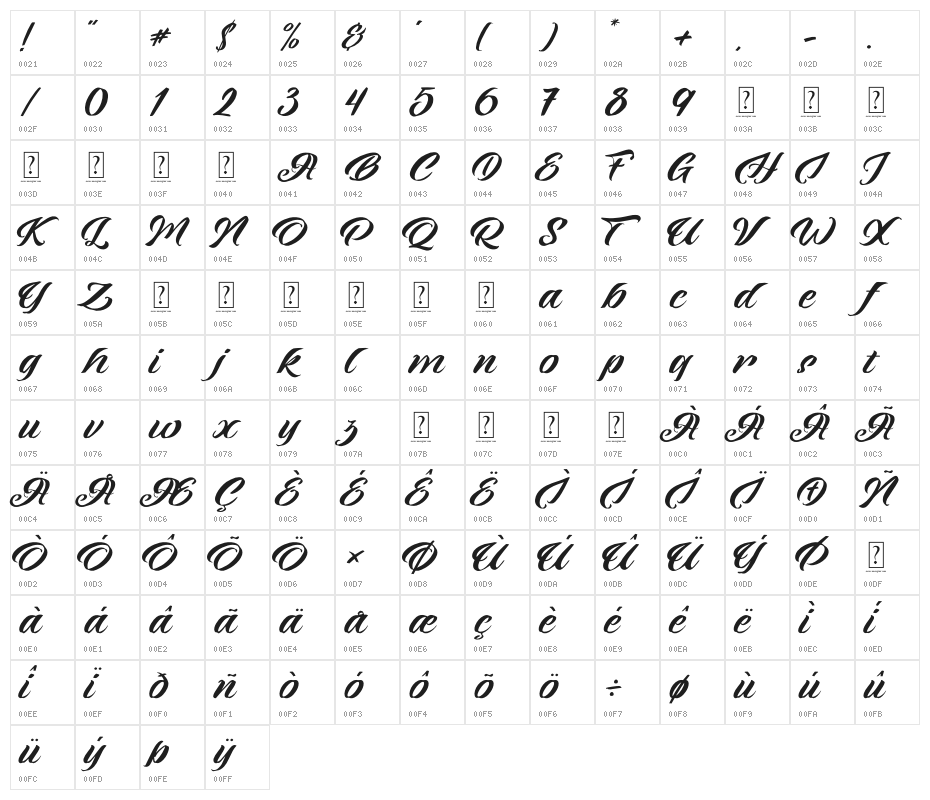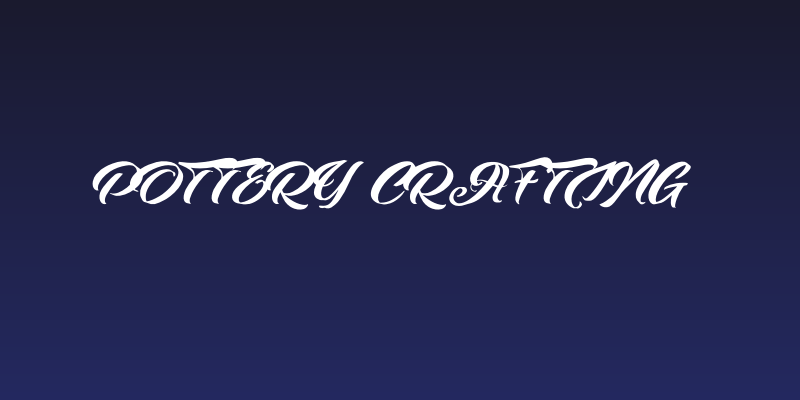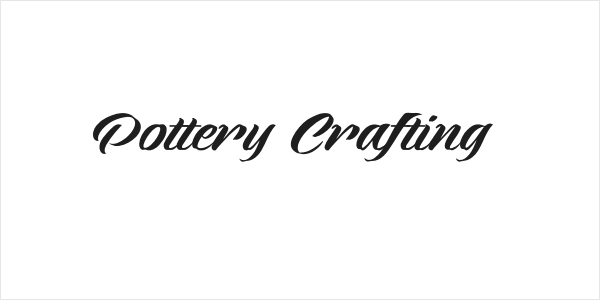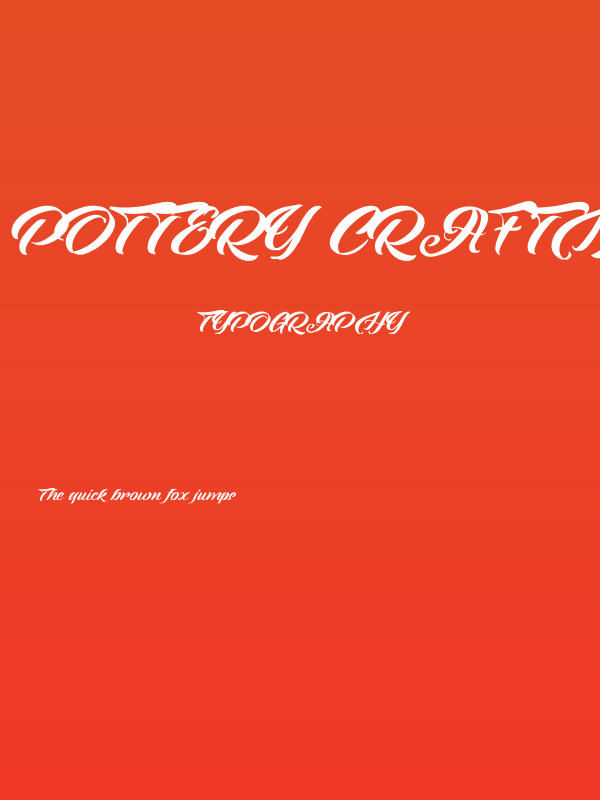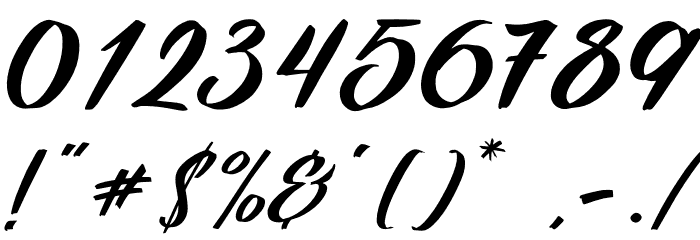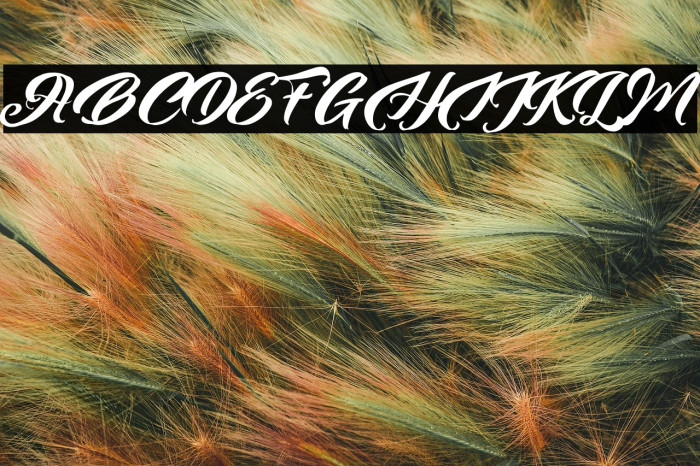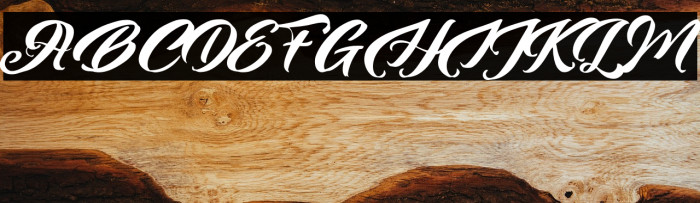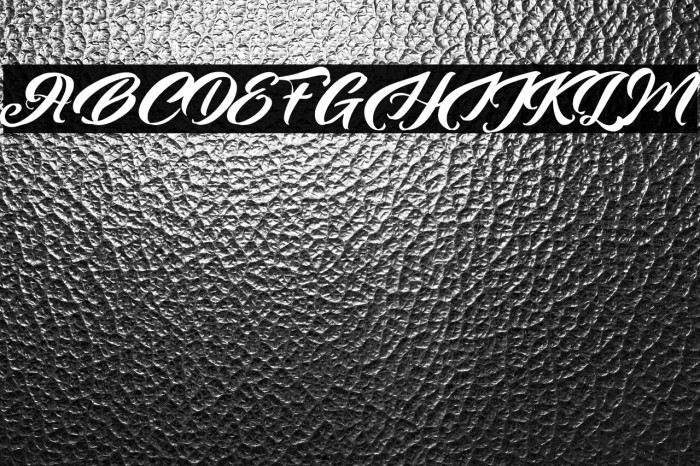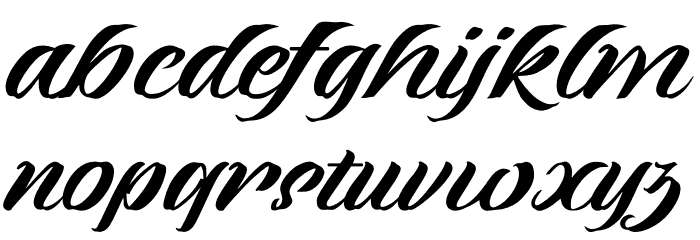
Pottery Crafting Font
Pottery Crafting Description
This font features a flowing, cursive style that exudes elegance and sophistication. The characters are interconnected with smooth, sweeping strokes, creating a sense of fluidity and grace. The uppercase letters are bold and prominent, while the lowercase letters maintain a consistent flow, enhancing readability. The numerals are designed with the same cursive flair, ensuring uniformity across all characters. Special characters are also crafted with attention to detail, maintaining the overall aesthetic. This font is ideal for projects that require a touch of class and refinement.
| Proposed Projects | Ideal for wedding invitations, luxury branding, elegant packaging, and artistic projects. |